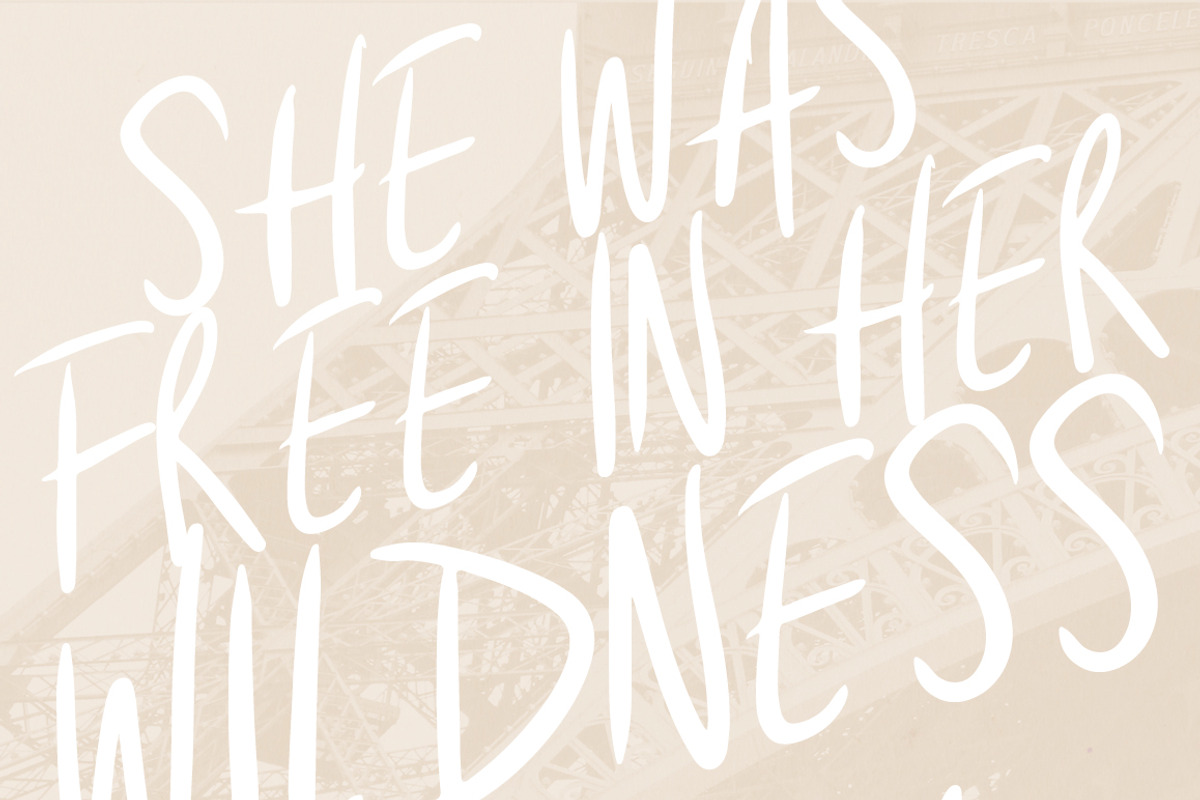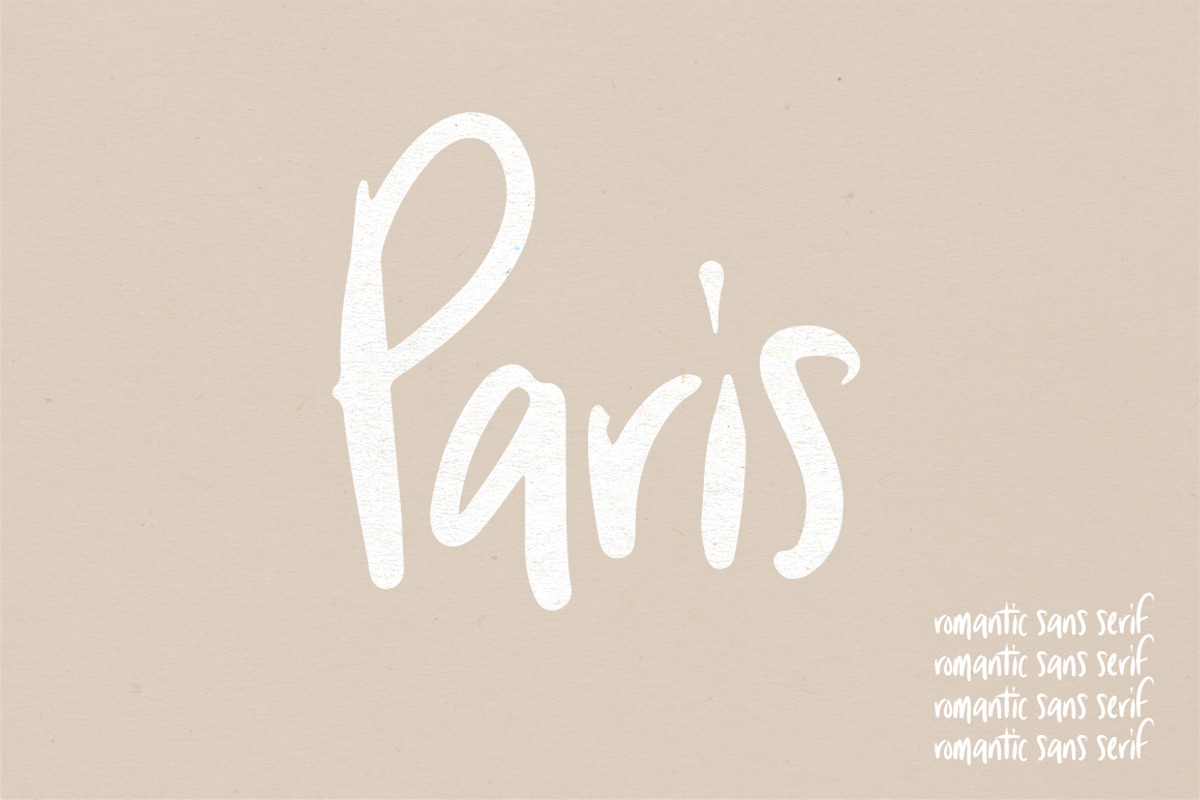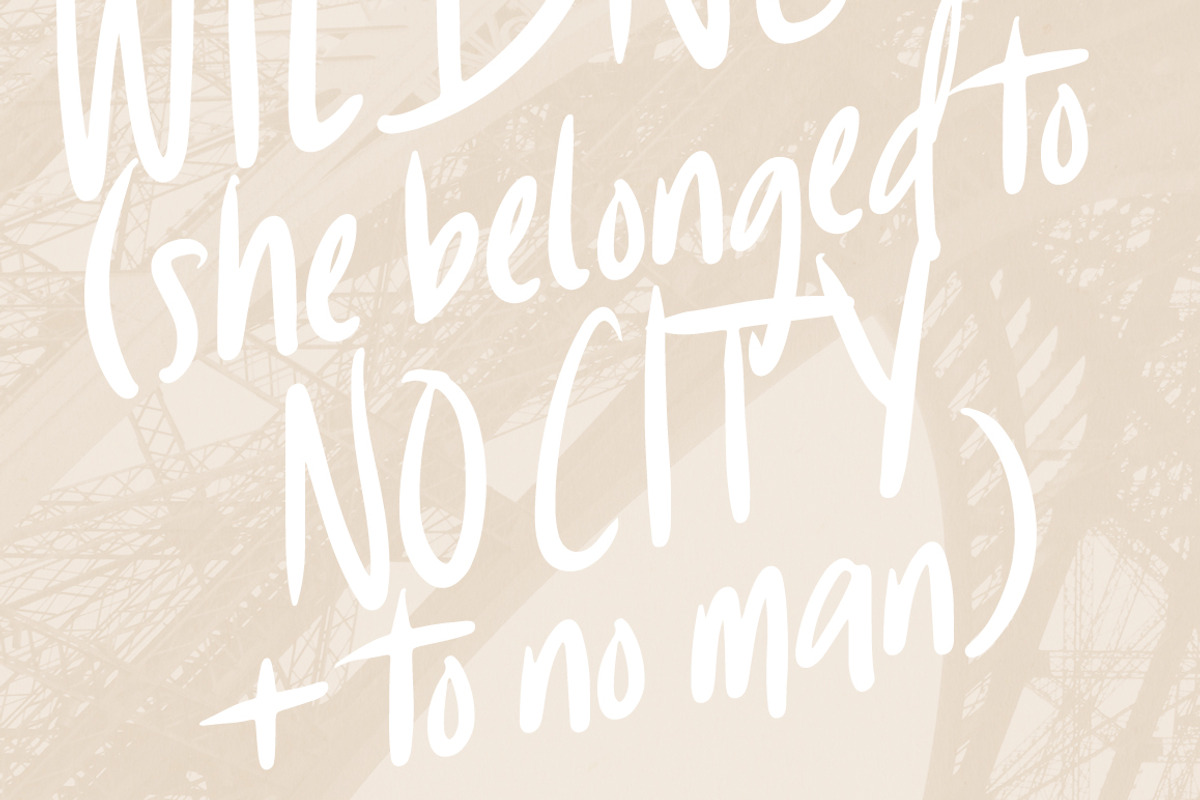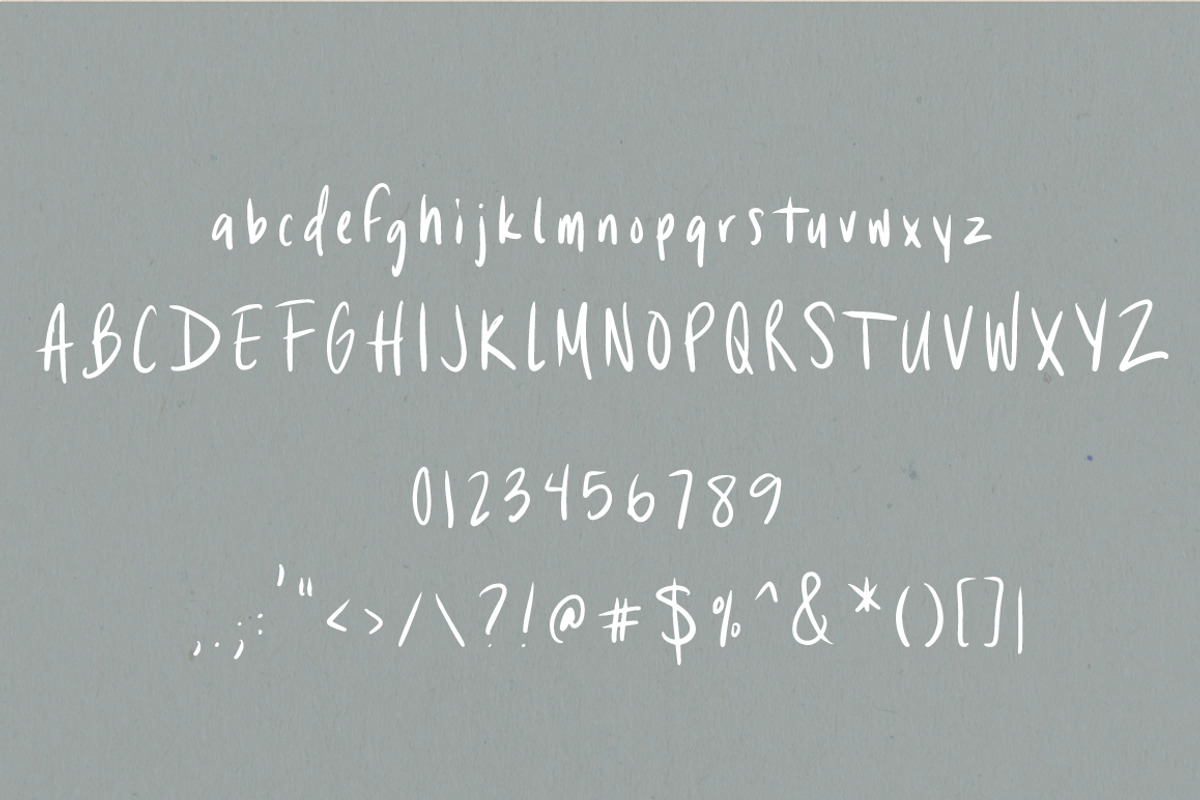
Paris | A Romantic Font
Paris | A Romantic Font by Jen Wagner Co is a font selected for branding, posters, packaging, typography.
- Includes capital + lowercase letters numbers + punctuation Show More
Paris | A Romantic Font by Jen Wagner Co fits naturally into Branding, posters, packaging, typography.